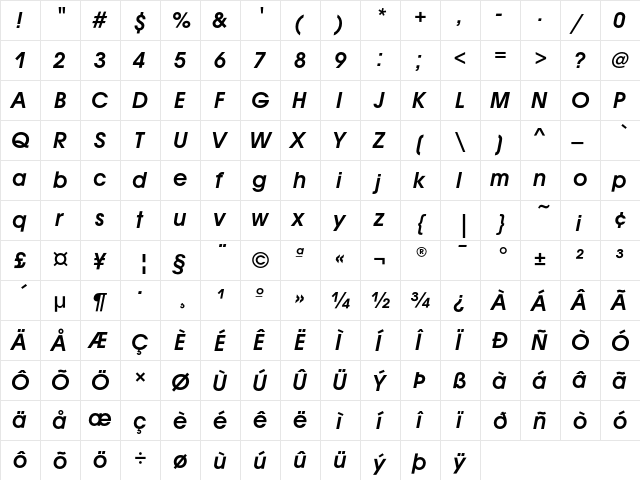
AvantGardEF DemiOblique
Design Context for AvantGardEF Typeface
AvantGardEF takes a measured approach to typography — its balanced proportions and neutral character make it a reliable workhorse for both digital and print work. Its italic angle brings a sense of urgency and motion to the letterforms.
Pro Tip: Use AvantGardEF for emphasis, pull quotes, and subheadings where its slanted energy can add rhythm to the layout.